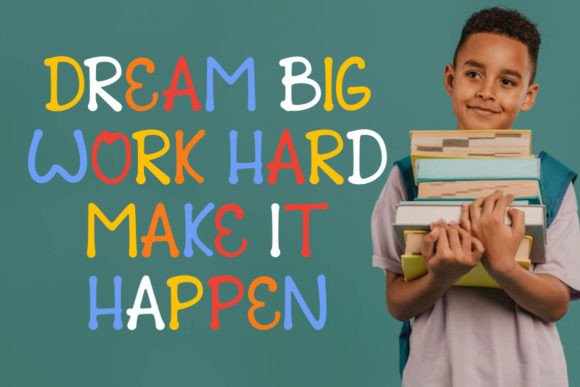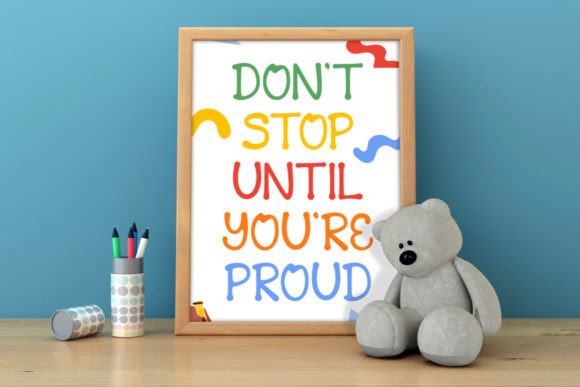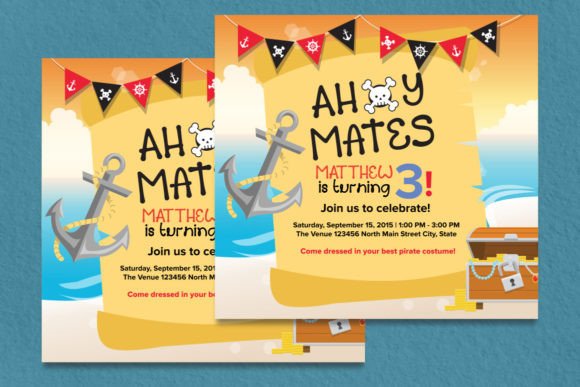
Introduction to Fun Art Friends Font
Do you remember the thrill of creating art as a child, with crayons and markers scattered all over the table? The freedom to express yourself without a care in the world, letting your imagination run wild? As designers, we often strive to capture that same sense of joy and creativity in our projects. That’s where the Fun Art Friends Font comes in – a delightful and playful handwritten font that’s sure to bring a smile to your face.
With its free-spirited and energetic handwriting style, Fun Art Friends Font is the perfect design resource for any creative project that needs a lighthearted and colorful touch. Whether you’re designing a children’s book cover, a logo for a toy company, or printing materials for a playful event, this font is sure to capture the attention and imagination of your audience. And the best part? It’s a high-quality, free download that’s available for all to enjoy.
Key Features of Fun Art Friends Font
- High-quality design resource perfect for creative projects, including illustrations, graphics, and digital art.
- Unique and playful characters, making it perfect for adding a touch of whimsy to your creative projects.
- Designed to be highly versatile, Fun Art Friends Font can be used in a wide range of design applications, from logos to digital art.
Honest Review: Fun Art Friends Font
I recently came across the Fun Art Friends Font, and I must say, it’s a great addition to any design resource. The font is available for free download, which is always a plus, especially when working on a creative project.
What works well is the high-quality design and the unique, playful style of the font. The transparent background option is also a great feature, allowing for easy customization and integration into various design elements.
- ✨ Unique and playful style, perfect for creative projects
- ✨ High-quality design, suitable for both digital and print media
- ✨ Transparent background option for easy customization
However, there are a few limitations to consider. The font may not be suitable for formal or professional projects, as it has a more casual and whimsical feel. Additionally, the free download option may come with some limitations on commercial use.
- ⚠️ May not be suitable for formal or professional projects
Overall, I would recommend the Fun Art Friends Font to designers looking for a unique and playful addition to their design resource. With its high-quality design and transparent background option, it’s a great choice for creative projects. However, be sure to review the terms and conditions before using it for commercial purposes.
The Fun Art Friends Font is ideal for creative projects, such as graphic design, digital art, and typography-based designs. Its high-quality design makes it perfect for use in various applications, including Canva, Adobe Photoshop/Illustrator, and PowerPoint/Word.
Q: Is the Fun Art Friends Font suitable for high-resolution designs?
Yes, the Fun Art Friends Font is designed to be high-quality and suitable for high-resolution designs. It has been optimized for use in various design software, including Adobe Photoshop and Illustrator, and can be scaled up to 300 DPI or higher without losing any quality or clarity.